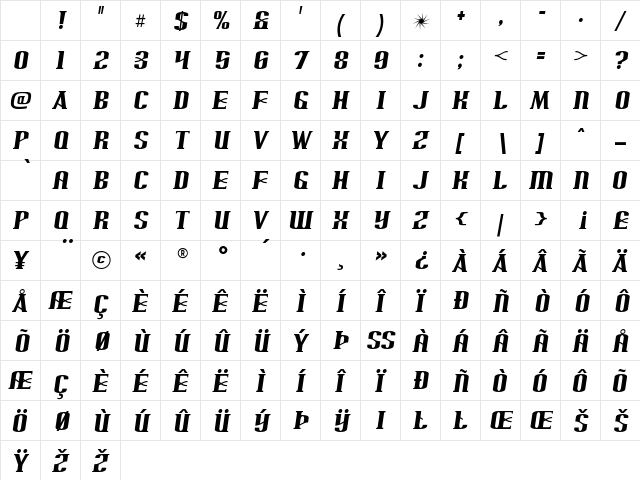
Complete Arnprior Regular glyph index. Displaying only characters natively supported by Arnprior Regular font.
Arnprior is a composed and adaptable typeface that performs quietly and consistently across a wide range of design contexts.